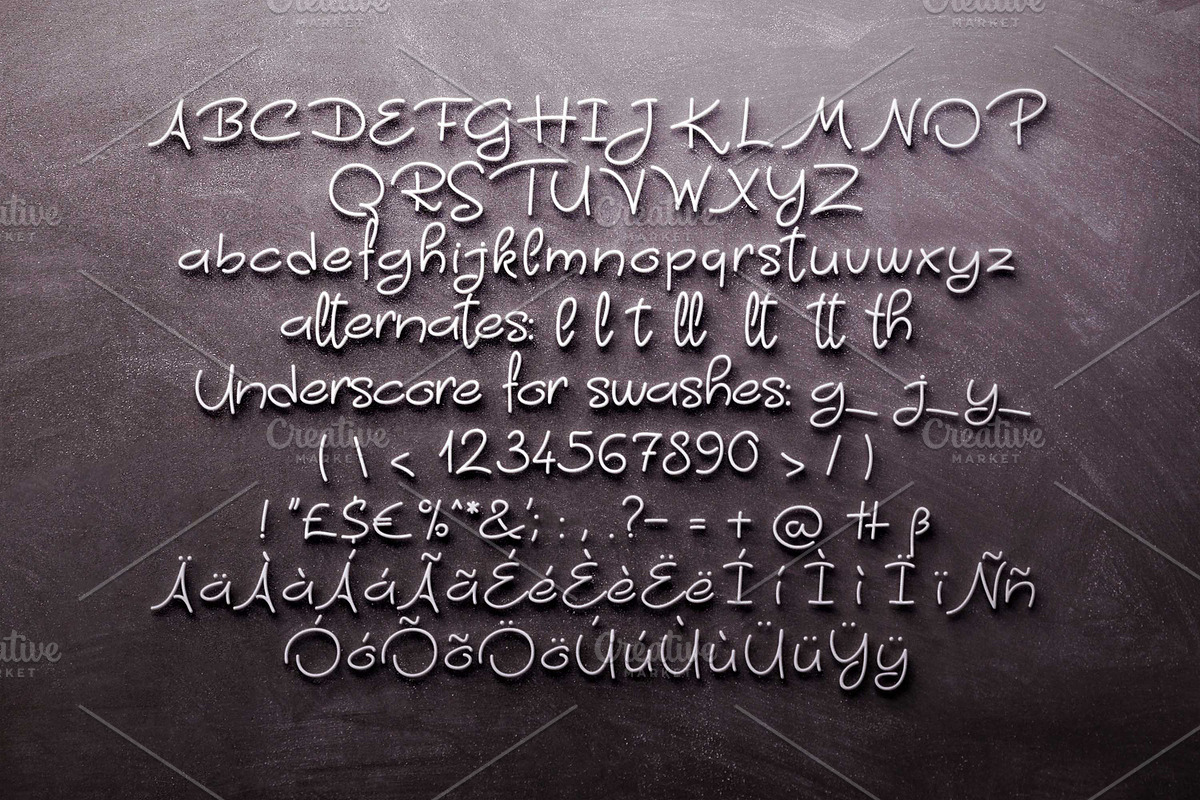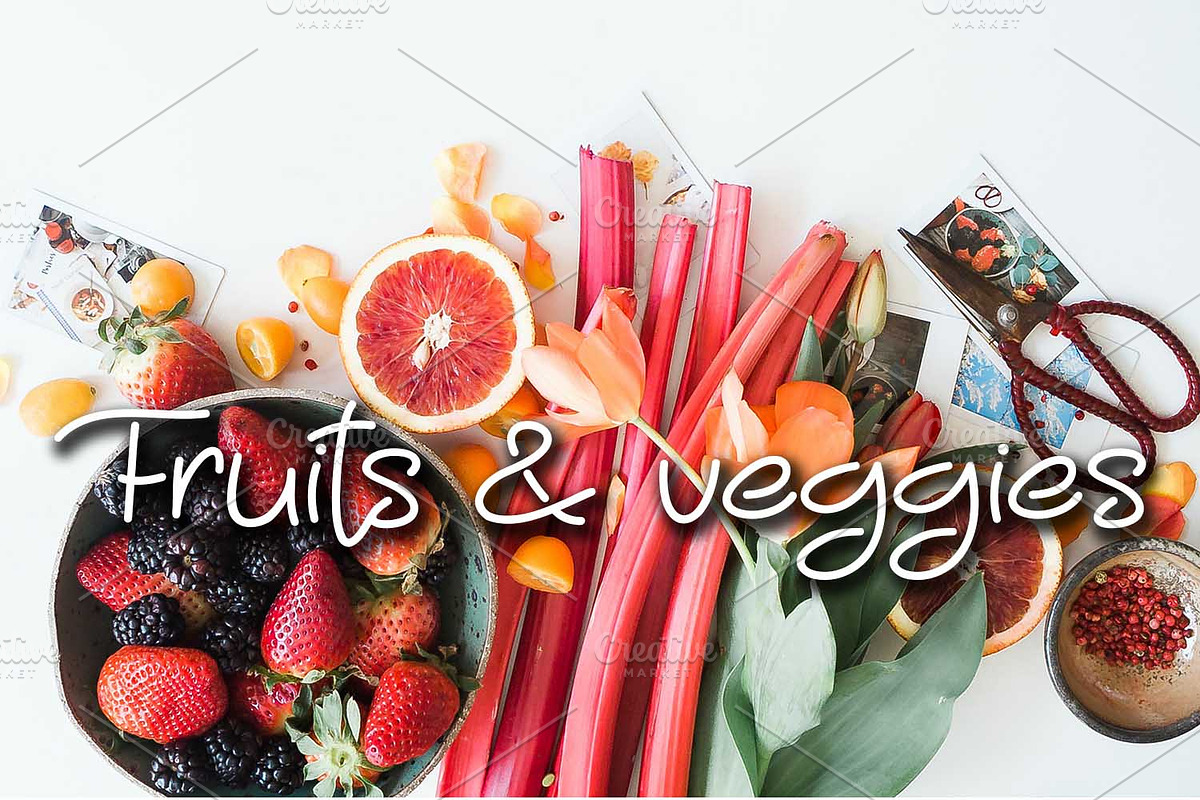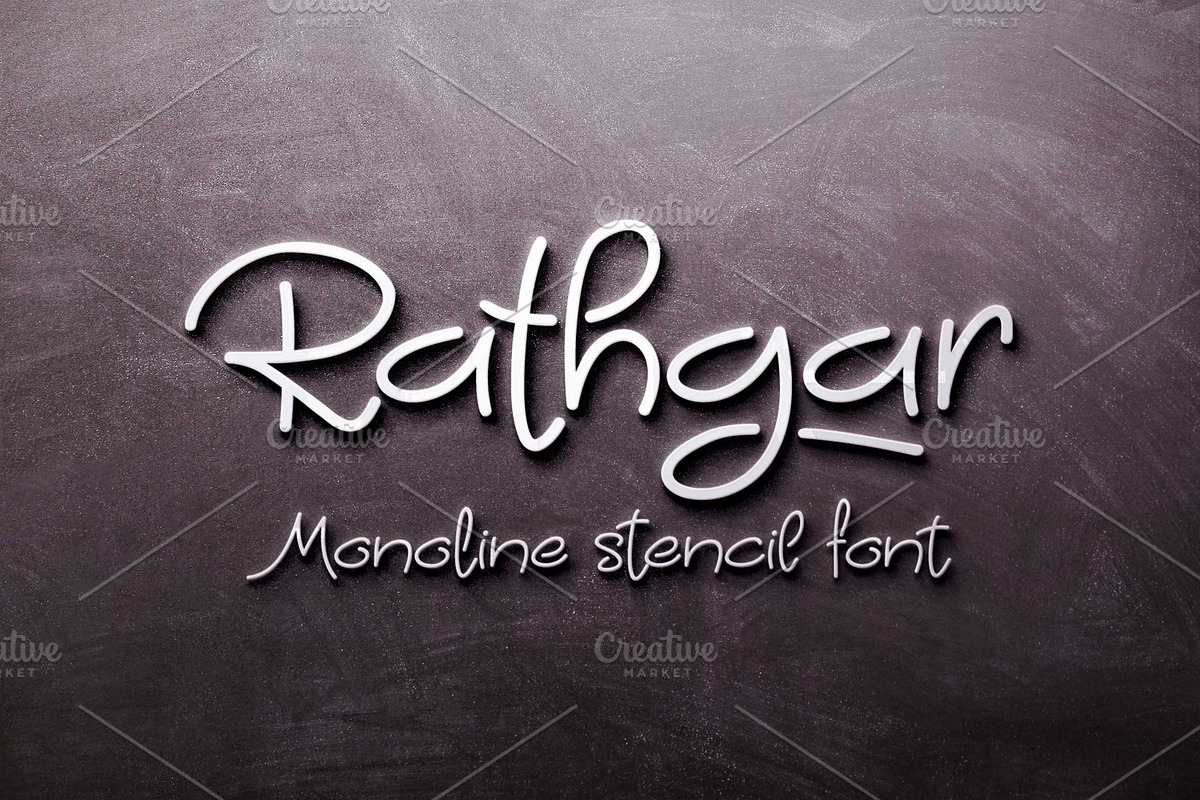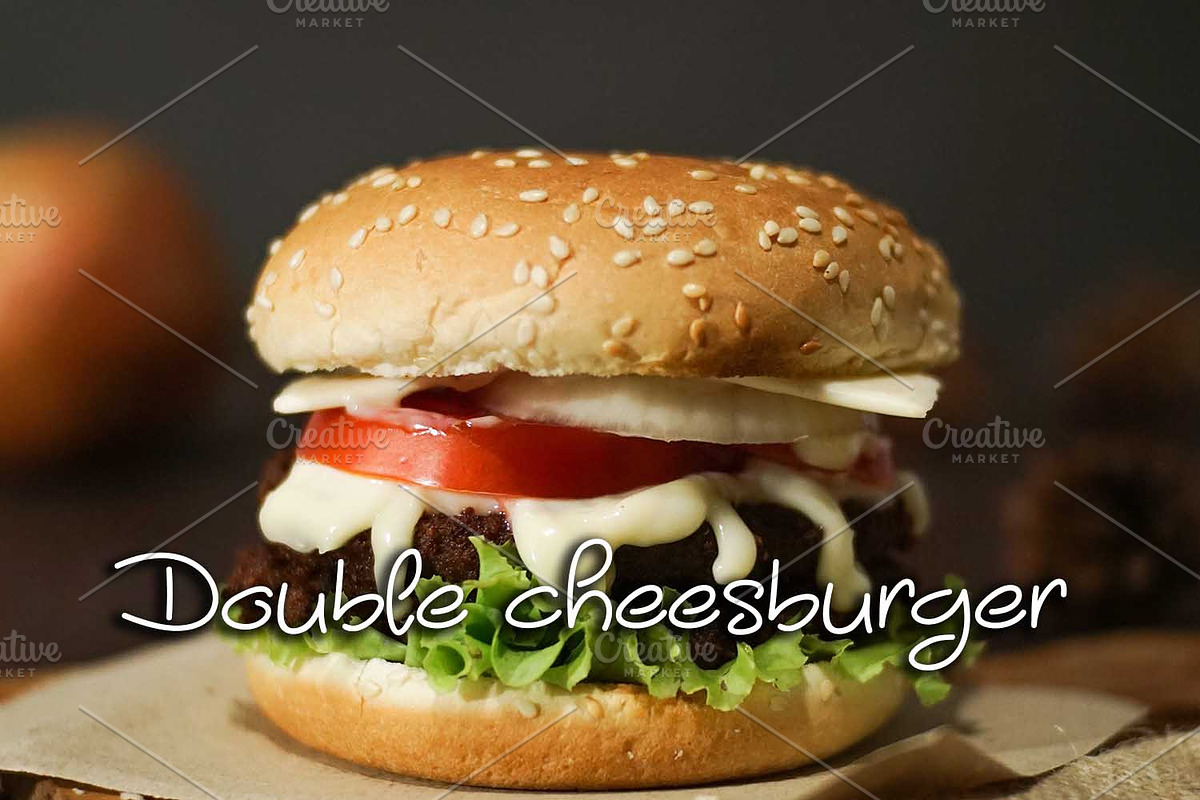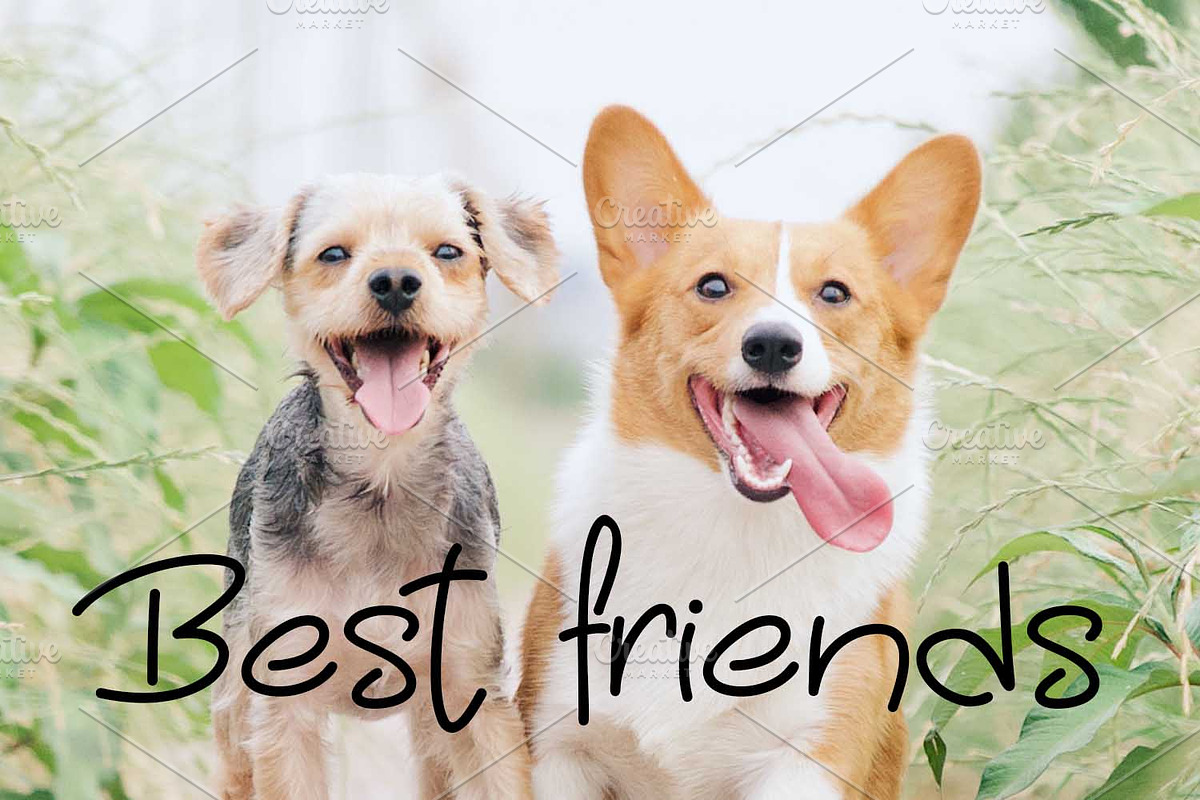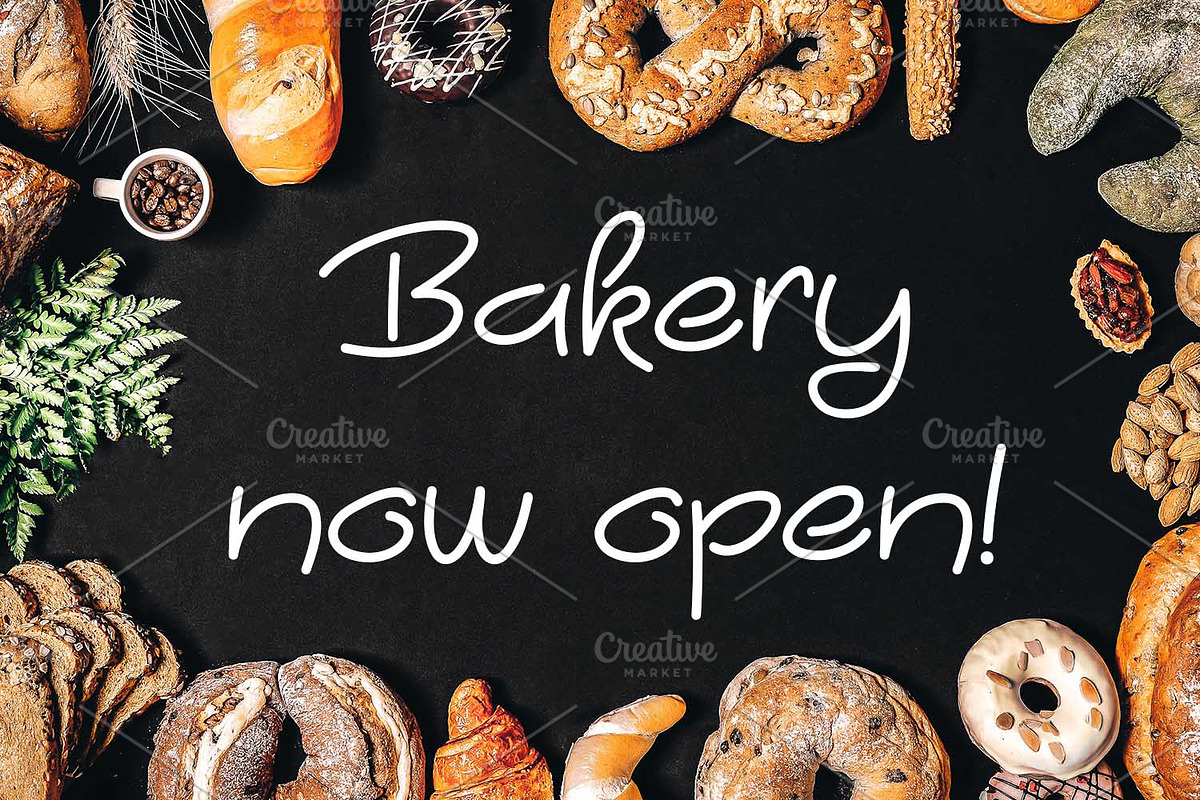
Rathgar Stencil
Rathgar is a carefully crafted handwritten stencil font, crafted without closed loops on the characters, so you can create truly unique and original looking designs.